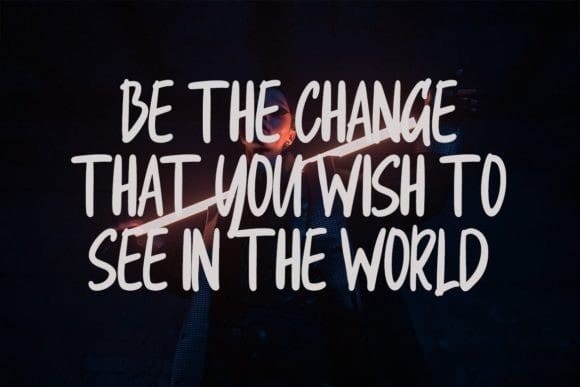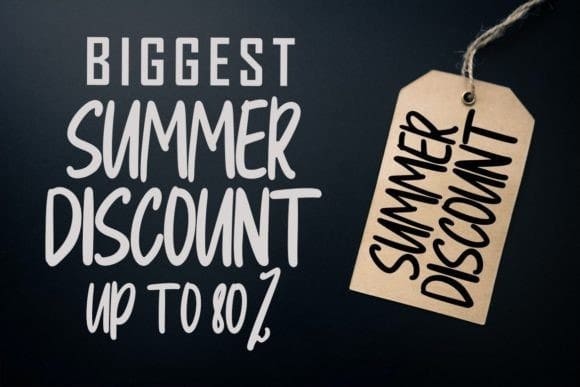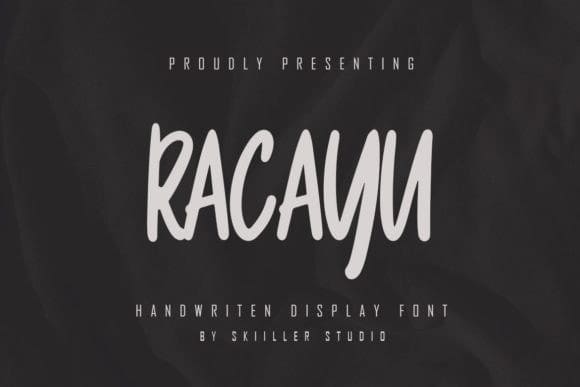
Racayu Font
Racayu Font is a modern paint-brushed handwritten font, crafted to give your headlines and logotype projects a stylish touch. This font reads as strong, confident, and dynamic and can add tons of urban character to your designs.